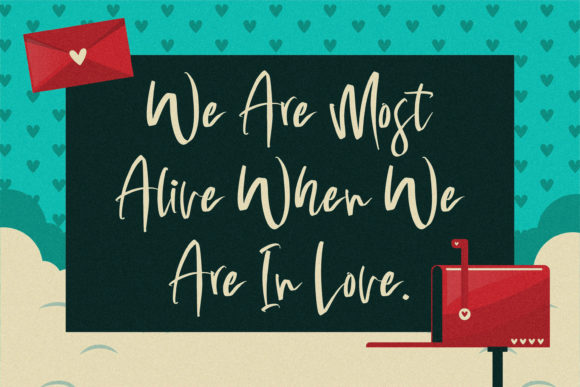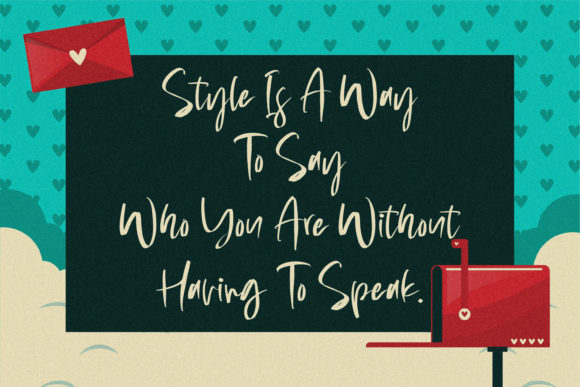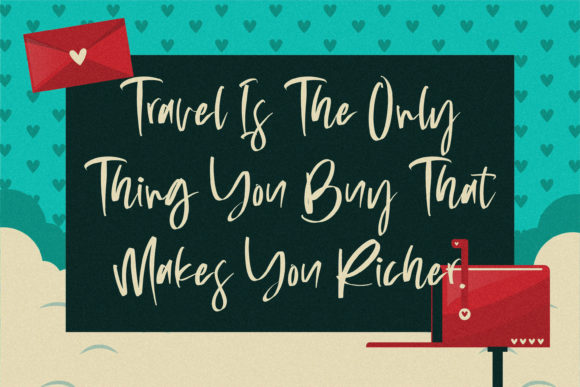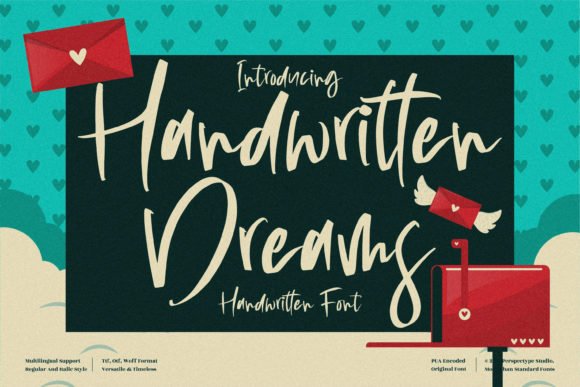
Introduction to Handwritten Dreams Font
Handwritten Dreams is a beautiful and flowing script font.
Relaxed and friendly, this font was created for various designs that require a casual, informal touch Add it confidently to your projects, and you will love the results.
Key Features of Handwritten Dreams Font
Why Choose Handwritten Dreams Font?
Handwritten Dreams Font offers exceptional quality and versatility, making it a valuable addition to your design toolkit. Whether you’re creating for personal projects or commercial use, Handwritten Dreams Font delivers professional results.